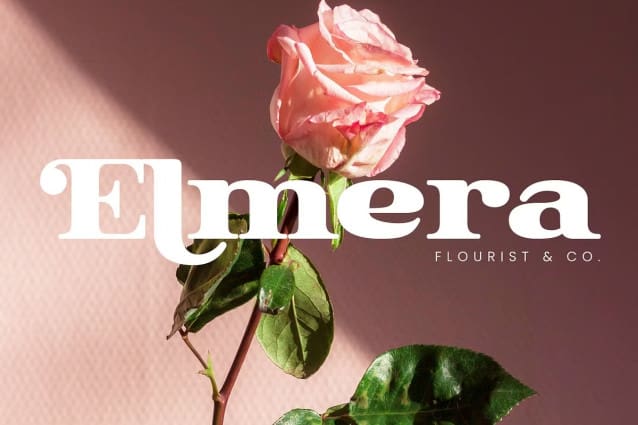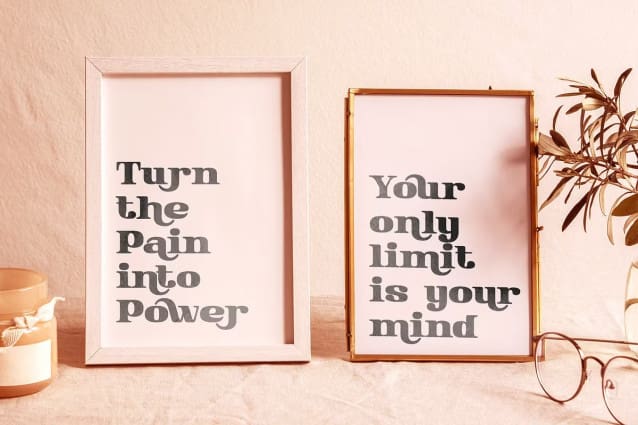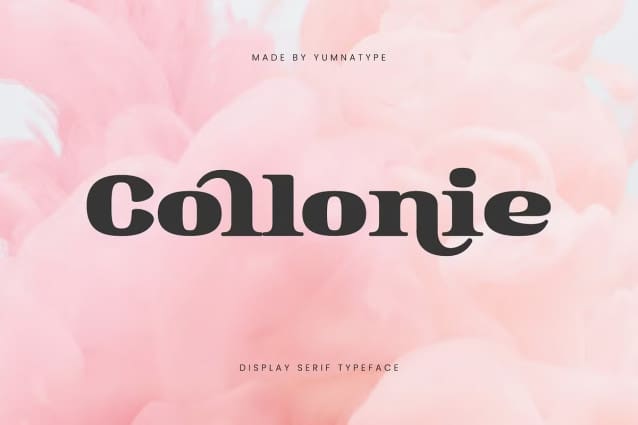
Collonie Font
Collonie Font is a stunning serif display font that exudes modern elegance with its bold, thick weight and sophisticated styling. Crafted with meticulous attention to detail, this font captivates the eye with its sleek lines and timeless appeal.
With its thick weight, Collonie Font commands attention and makes a bold statement in any design application. Each letter is meticulously crafted with clean lines and precise curves, creating a sense of elegance and sophistication that is impossible to ignore.
Despite its boldness, Collonie retains a sense of modernity and refinement that sets it apart from traditional serif fonts. The sleek lines and minimalist details give it a contemporary edge.